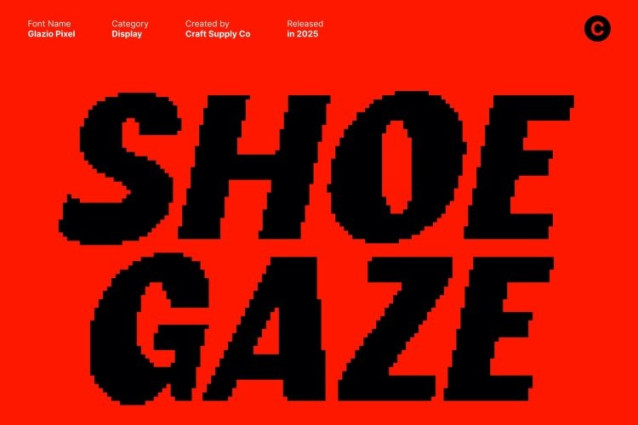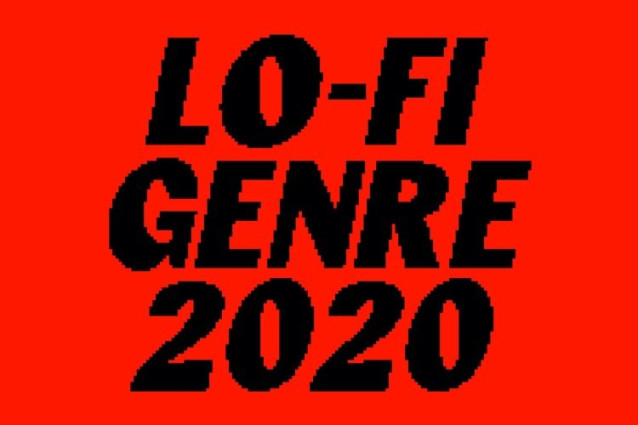
Glazio Pixel Font This modern sans-serif font features bold, clean, and contemporary lines that immediately command attention. Its solid structure and confident shapes create a sharp, polished look, making it ideal for designers who want clarity, strength, and a modern edge in their visual work.
Funky Flair for Creative Expression
A subtle funky twist adds personality to every character, giving the font a fresh, expressive attitude. This playful touch enhances its versatility, allowing it to stand out in creative layouts while still maintaining a professional appearance.
Pixel Style for a Trendy Digital Vibe
The added pixel styling introduces a digital-inspired texture that makes the font feel unique and stylish. This pixel effect brings a modern tech aesthetic, blending clean design with a trendy digital vibe that suits contemporary, youthful, and dynamic design concepts.
Ideal for Logos, Posters, and Branding
Perfect for creative branding, eye-catching posters, innovative logos, and visual identities, this font excels in projects that need to stand out. Its bold structure and pixel twist work together to create layouts that feel modern, expressive, and visually memorable.
Modern, Funky, and Uniquely Trendy
By combining bold sans-serif clarity with a funky flair and pixel styling, this font delivers a fresh and distinctive visual presence. It’s the perfect choice for designers seeking a modern yet playful typeface that elevates any creative project with style and originality.